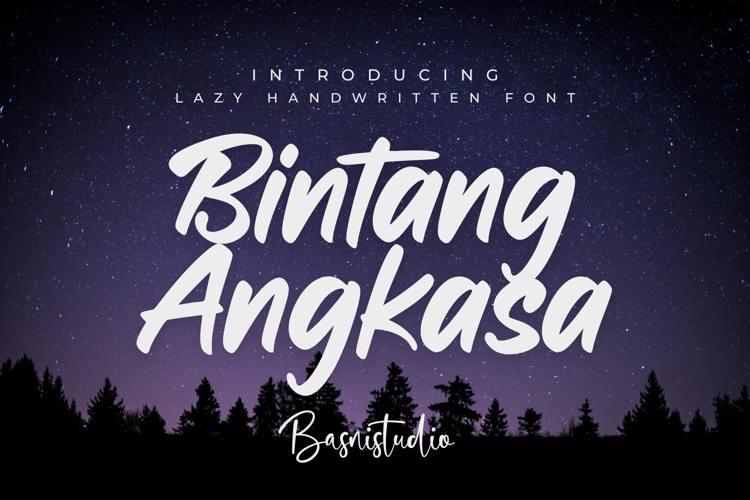
Bintang Angkasa Font
About Bintang Angkasa Font
INTRODUCING Bintang Angkasa
Bintang Angkasa isn’t just a font — it’s attitude in every curve, confidence in every letter.